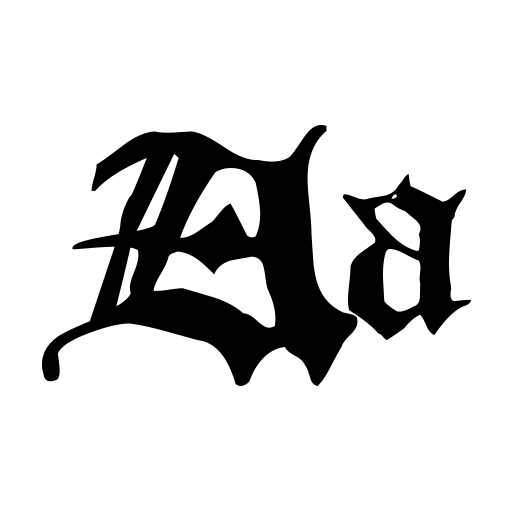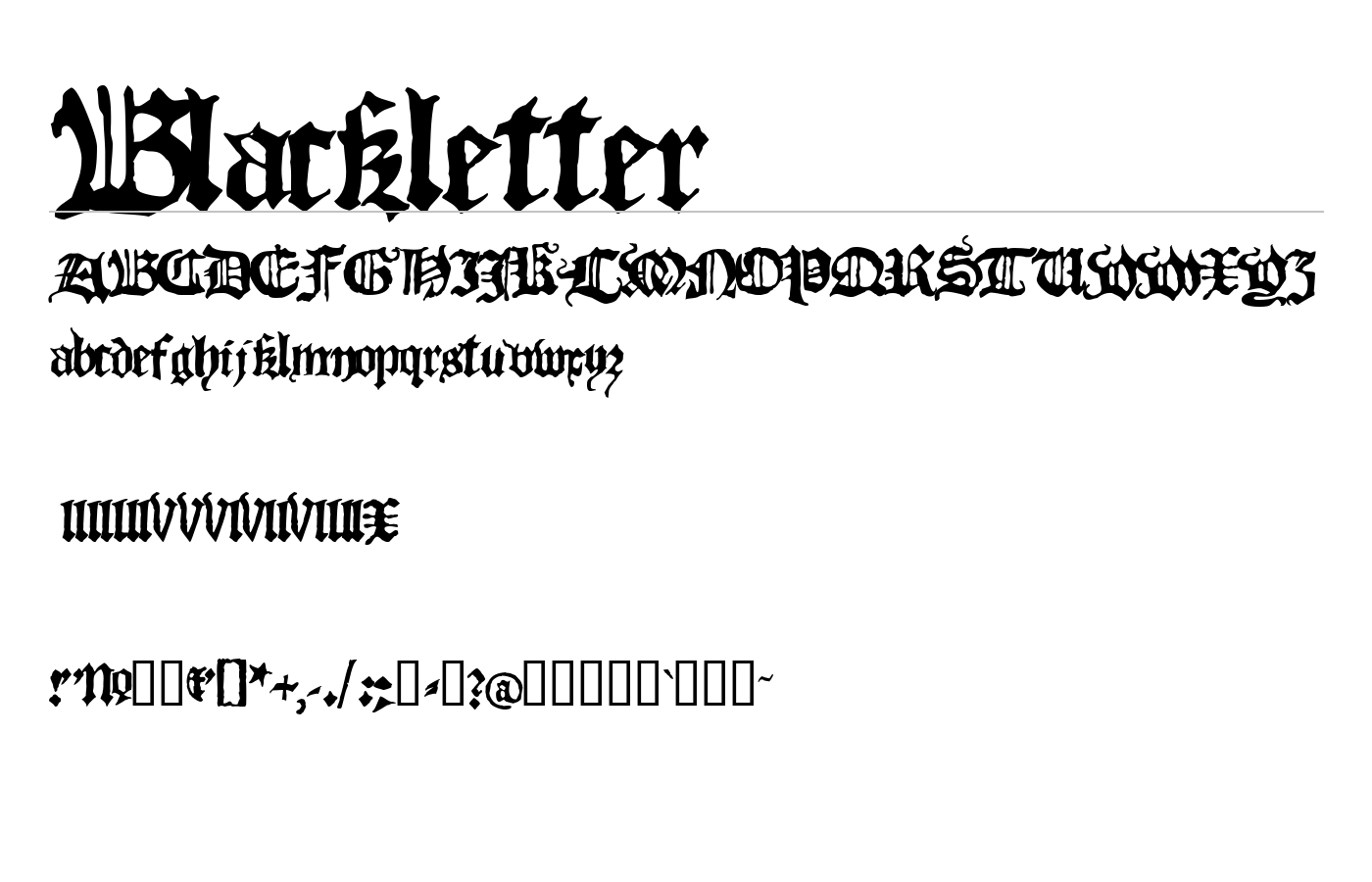
This Blackletter font is a bold, dramatic serif style characterized by its sharp, angular strokes and dense, high-contrast letterforms that evoke a historic, medieval feel. Its ornate, tightly spaced design with elaborate uppercase letters and distinctive lowercase shapes makes it ideal for creating a vintage or gothic atmosphere. This font works best in headlines, logos, and formal invitations where a strong, old-world impression is desired.
Blackletter Font
About Blackletter Font